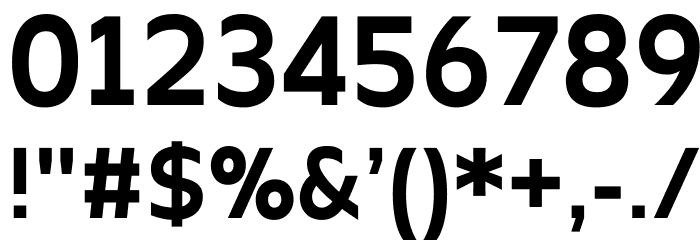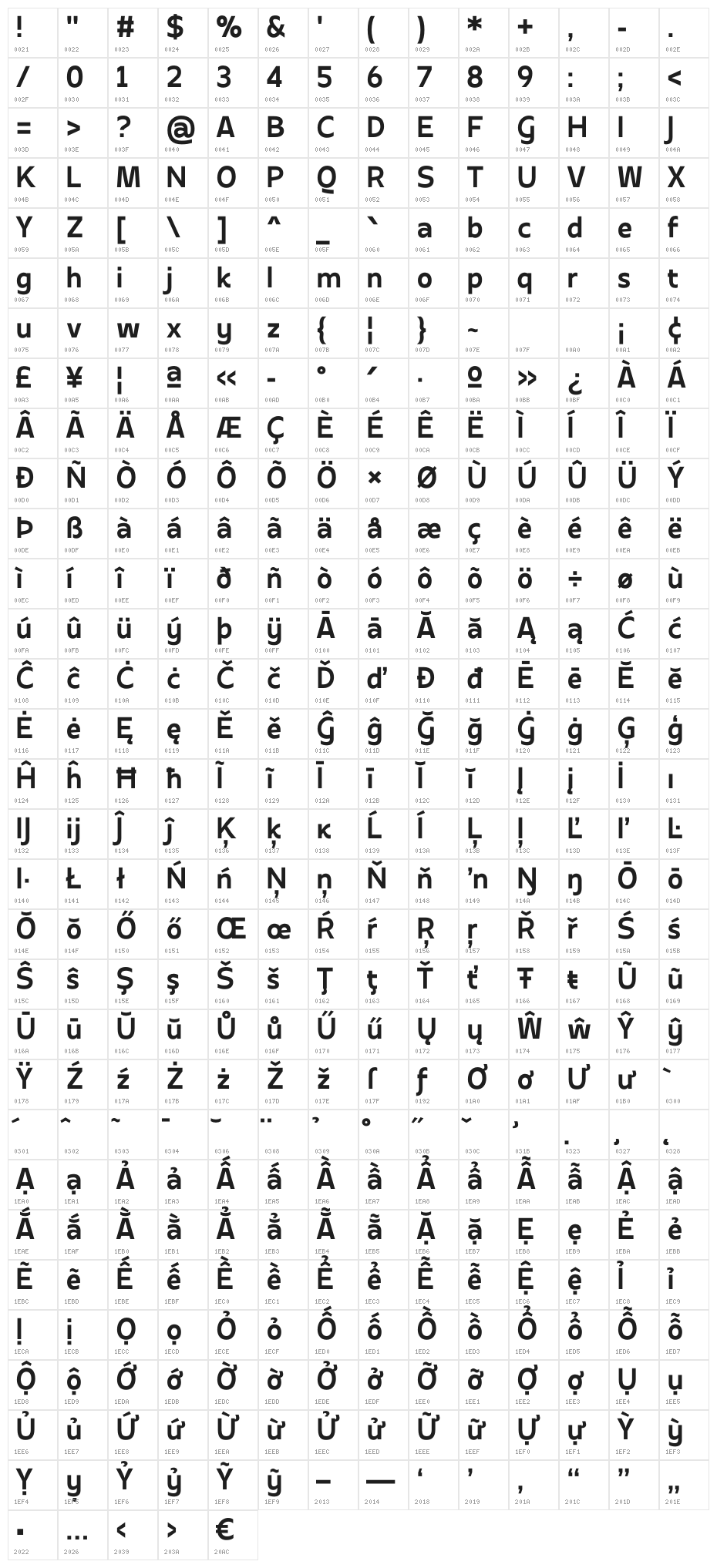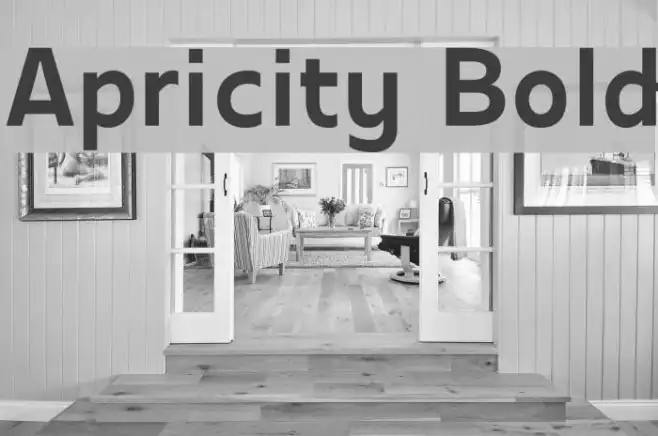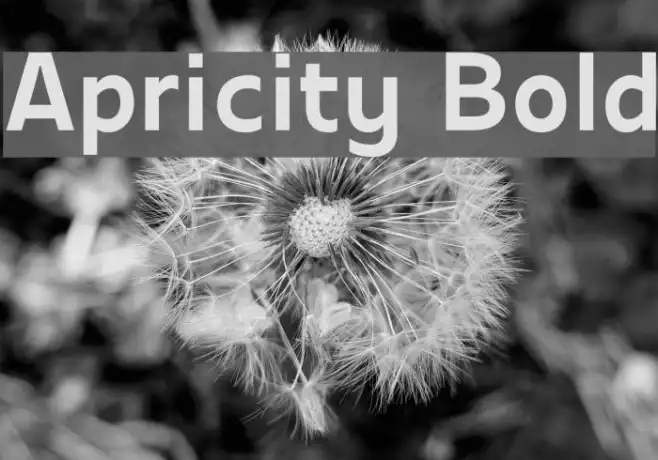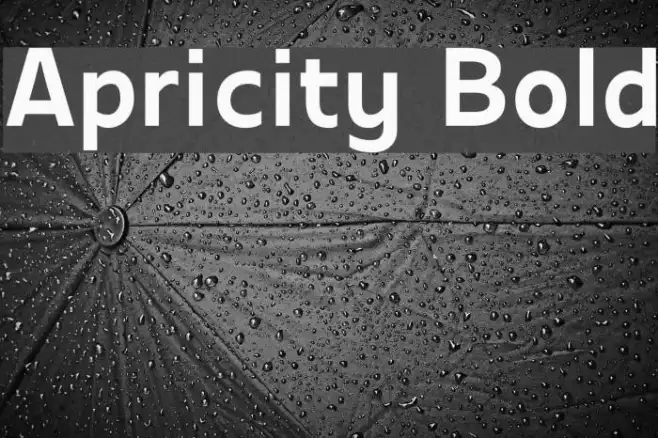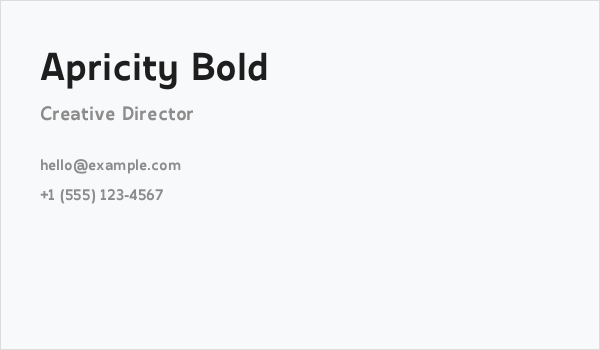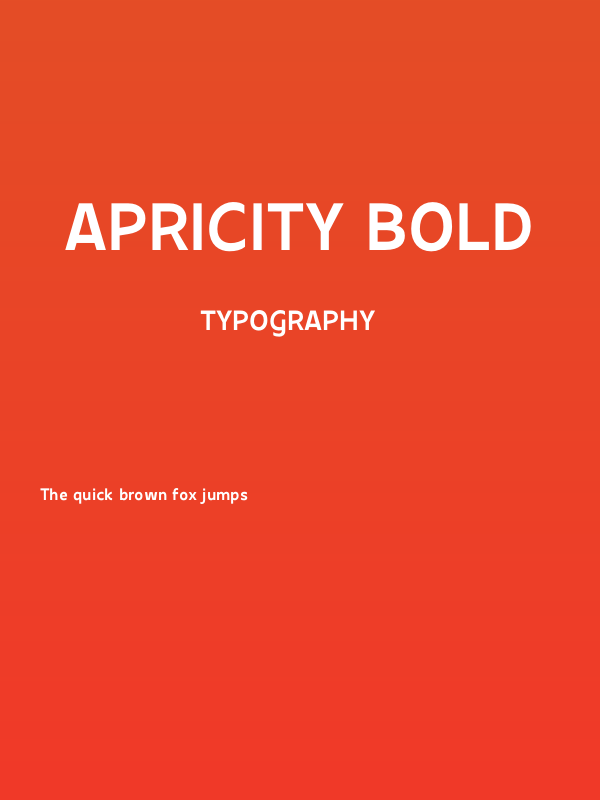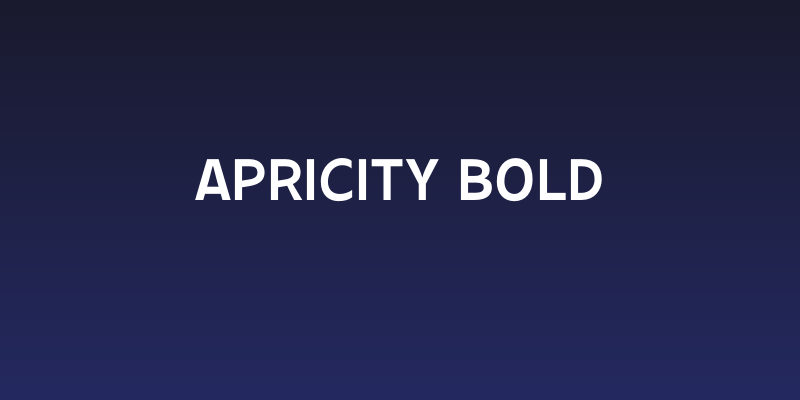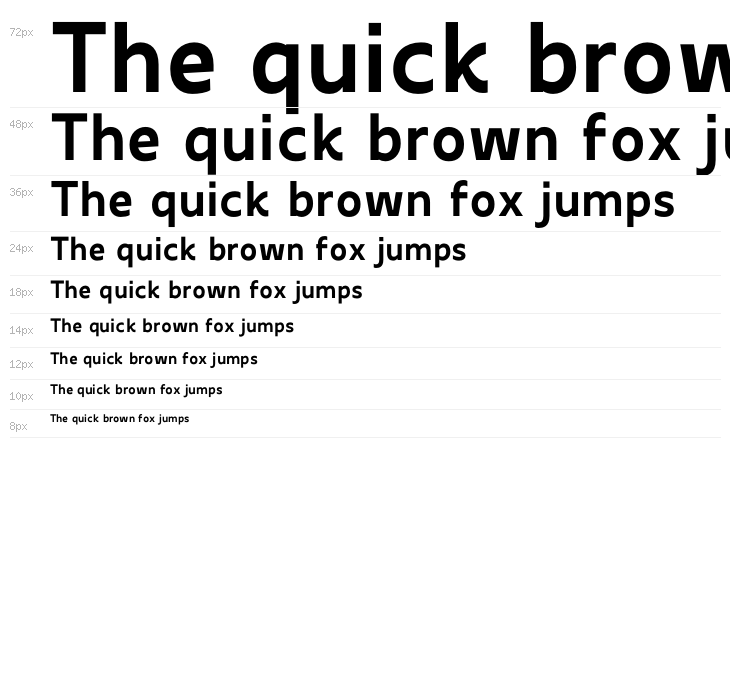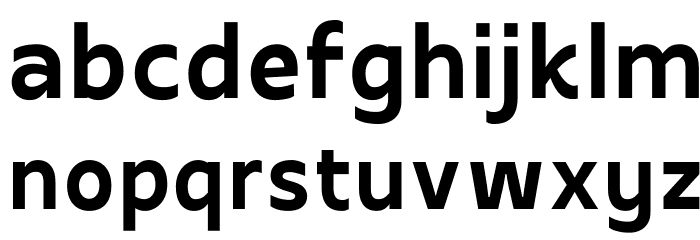
Apricity Bold Font
Apricity Bold Description
This font presents a bold and modern sans-serif style, characterized by clean lines and a strong presence. The uppercase and lowercase letters are well-proportioned, offering a harmonious balance that enhances readability. The numerals are clear and distinct, making them suitable for various applications. Special characters are included, maintaining the font's cohesive design. The overall appearance is professional and versatile, making it ideal for both digital and print media. Its bold weight ensures that it stands out, while the normal width and character spacing provide a comfortable reading experience.
| Use Case | Headlines, Logos, Digital content |
| Proposed Projects | Ideal for branding, advertising, headlines, and digital content where a modern and bold statement is needed. |